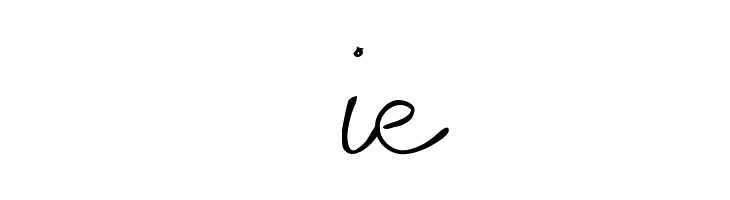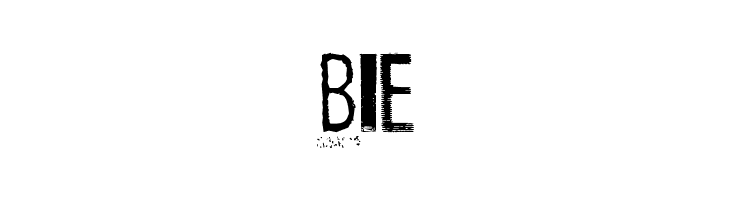
A bold, distressed font with jagged edges and a dynamic, hand-drawn style.
A triple-striped, geometric font with a bold and modern style.
A bold, impactful font with thick strokes and a strong presence.
A bold, angular font with a geometric and modern style.
A fluid, cursive handwritten font with dynamic strokes and interconnected letters.
A bold, distressed font with a vintage, industrial style.
A distressed, grunge-style font with a bold, textured appearance.
A bold, distressed font with a grunge, textured appearance.
A distressed, grunge-style font with a bold, rugged appearance.